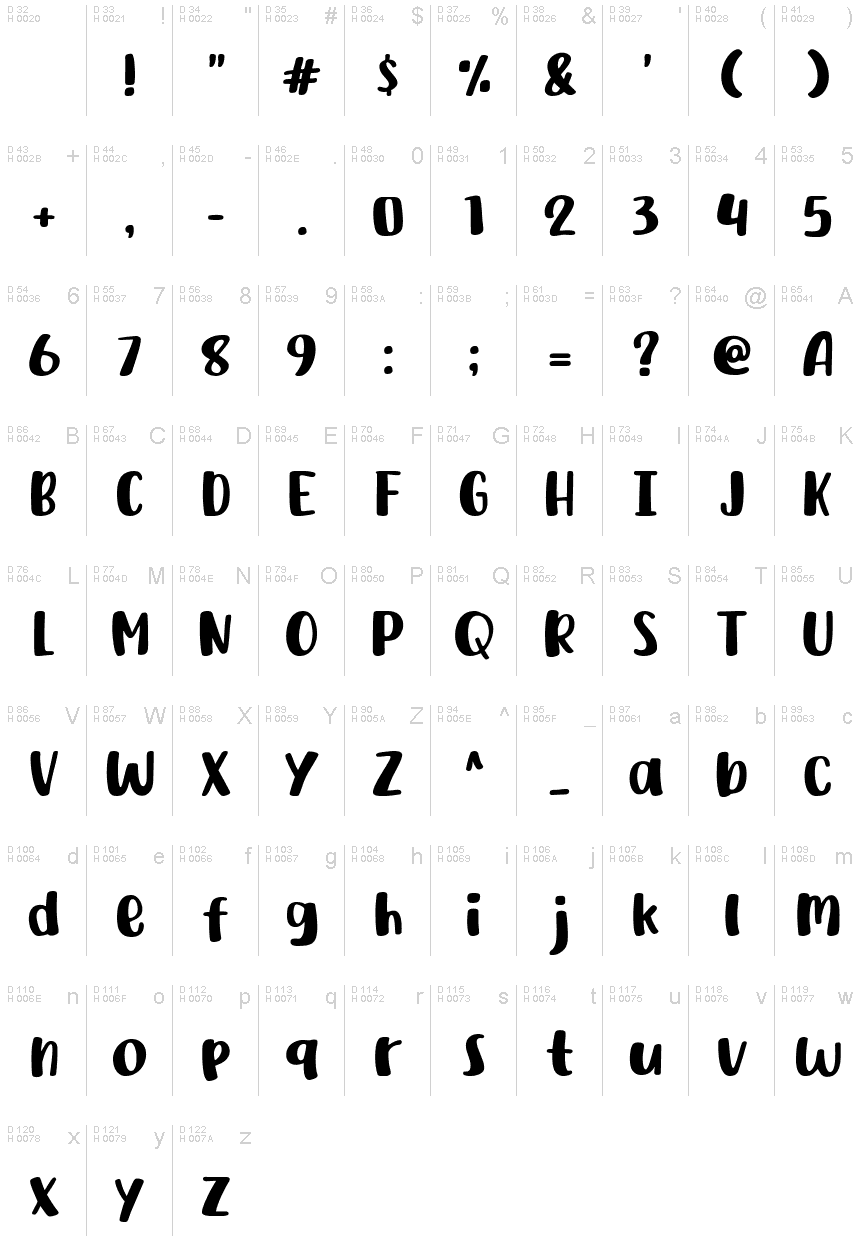
Yellow Style
Yellow Style Font is a bold and playful display typeface designed by Khurasan & Jalembe. Its whimsical letterforms and bubbly curves exude personality and charm, making it perfect for adding a touch of fun to any design project.
Whether you're creating eye-catching headlines, dynamic logos, or vibrant creative projects, this font brings a pop of character to the table. With its unique and energetic style, Yellow Style Font captures the essence of joy and creativity, ensuring that your text stands out from the crowd.
So if you're looking to infuse your designs with a sense of playfulness and vibrancy, look no further than Yellow Style Font.